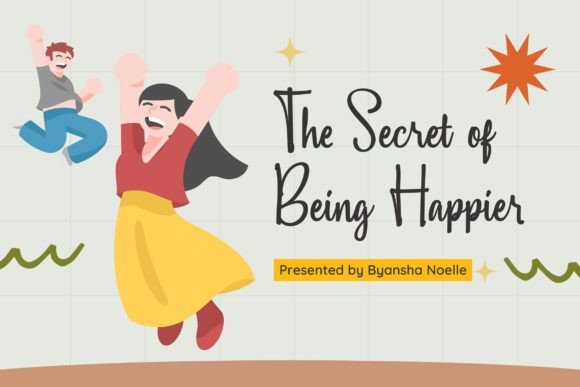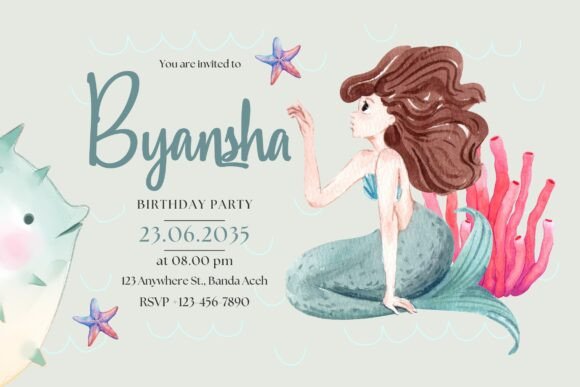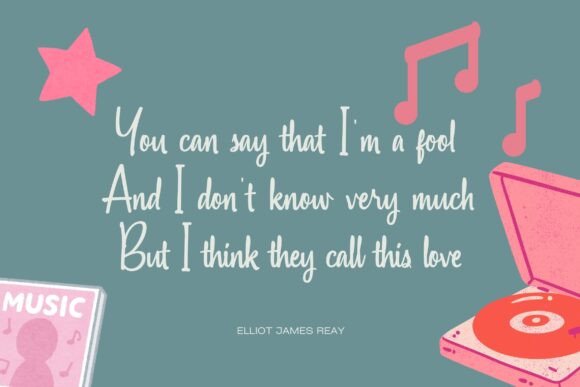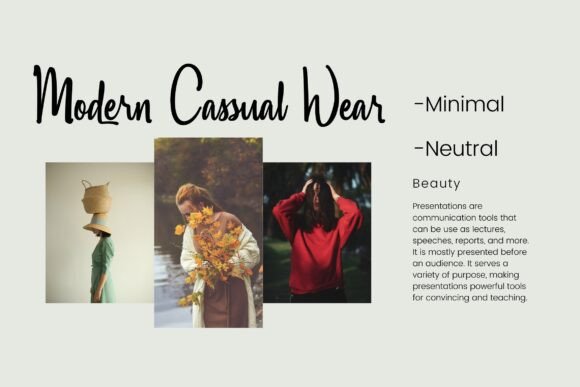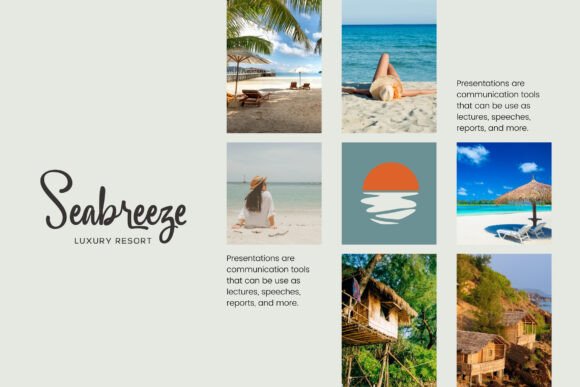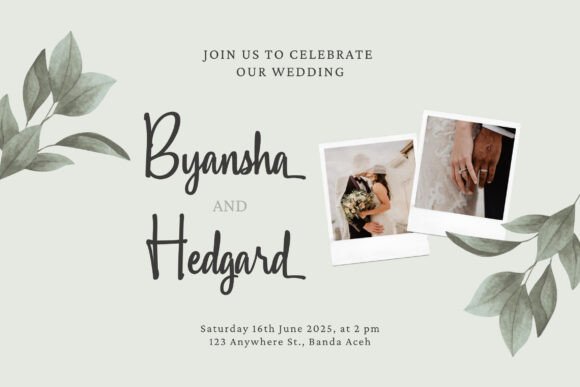
Unleashing the Beauty of Handwritten Design
There’s something magical about capturing the essence of handwritten notes and transforming them into timeless design elements. Perhaps you’ve been there – rummaging through old notebooks, reminiscing about memories, and marveling at the unique character of each scribbled line. This moment of creative introspection is where the beauty of handwritten design truly begins.
Enter the Byansha Noelle Font, a masterful blend of elegance and modernity that brings this essence to life. This versatile script is designed to add a personal touch to your designs, making it perfect for a wide range of applications, from branding and marketing materials to digital products and publications. With Byansha Noelle Font, you can infuse your designs with the warmth and character of handwritten notes, while maintaining a sleek, contemporary look that’s sure to captivate your audience.
Byansha Noelle Font Key Features
- Font Family: Byansha Noelle Font
- Character Set: Latin, Cyrillic, Greek, and some additional characters
- Unique Characteristics: Elegant, cursive, and handwritten style; perfect for invitations, quotes, and creative projects
Byansha Noelle Font Review
At first glance, Byansha Noelle Font appears to be a beautiful, elegant script font. The ✨ flowing connections between letters and the subtle flair at the ends of strokes are a highlight of this design. The font’s ability to convey a sense of sophistication and luxury makes it a great choice for high-end branding, fashion, and design projects.
One of the standout features of Byansha Noelle is its versatility. It’s suitable for both digital and print applications, making it a convenient choice for designers working on various projects. Additionally, the font’s OpenType features allow for advanced typographic controls, which can enhance the overall visual impact.
- ⚠️ Byansha Noelle Font may not be the best choice for projects requiring a more rugged or edgy feel, as its delicate nature may not convey the desired tone.
- ⚠️ The font’s connections between letters can sometimes appear too loose or uneven, which may affect readability in certain contexts.
- ⚠️ Byansha Noelle Font may not be suitable for text-heavy content, as the spacing and letterform size may not be optimized for maximum legibility.
Overall, Byansha Noelle Font is a solid choice for designers seeking a sophisticated, elegant script font. While it has its limitations, the font’s unique characteristics and versatility make it a valuable addition to any design arsenal.
Getting the Most Out of Byansha Noelle Font
To get the most out of Byansha Noelle Font, use it for:
- Whimsical and creative designs.
- Handwritten or cursive text effects.
- Adding a touch of elegance and sophistication to your designs.